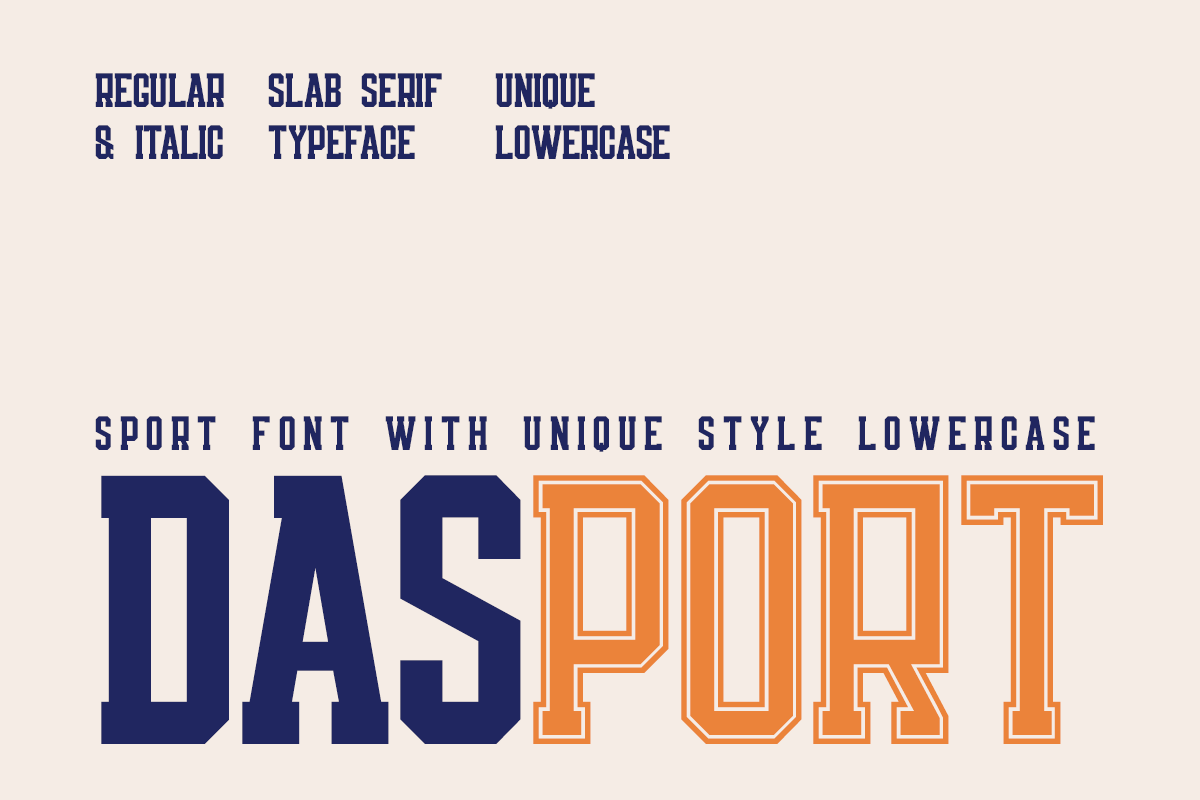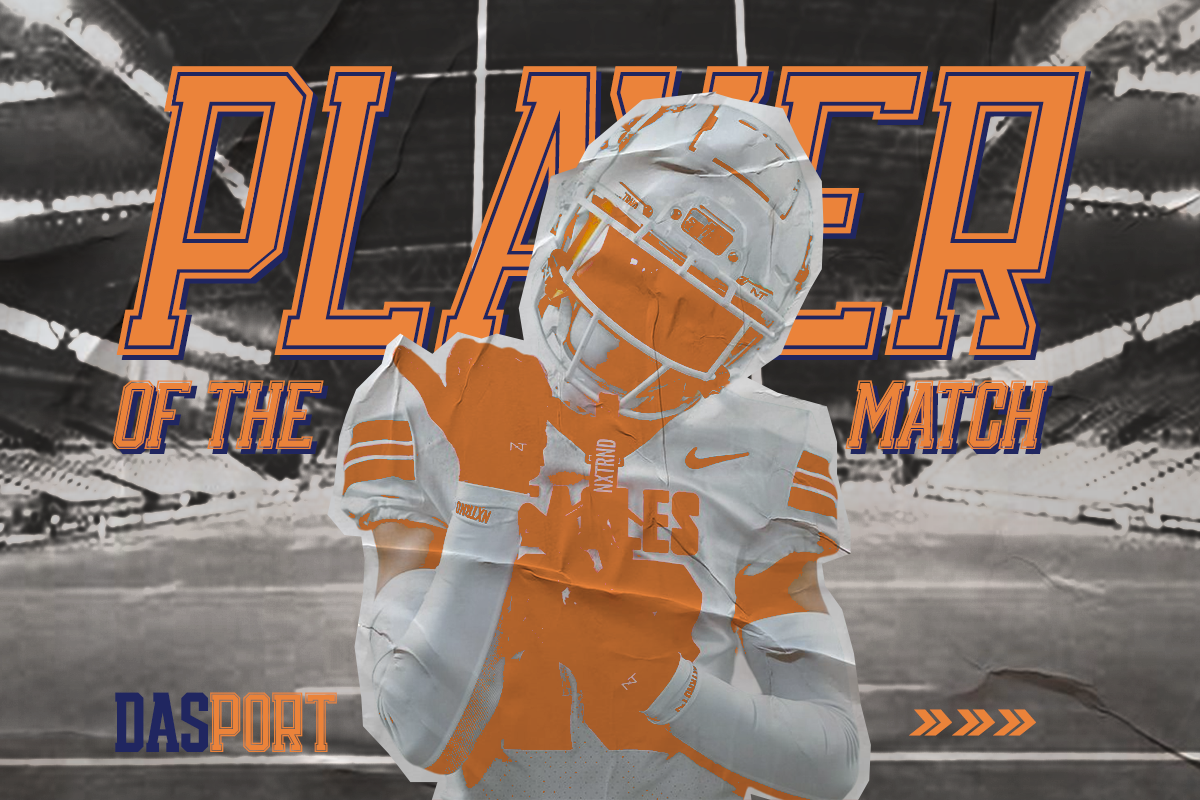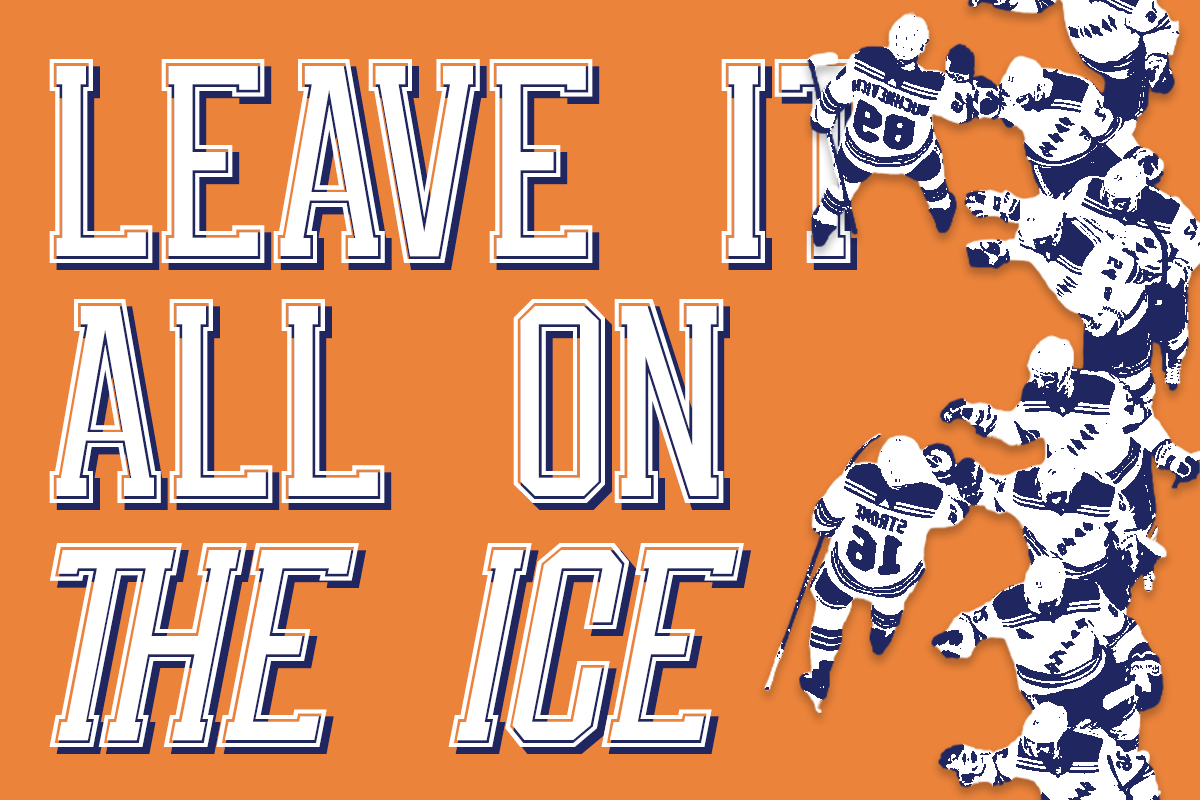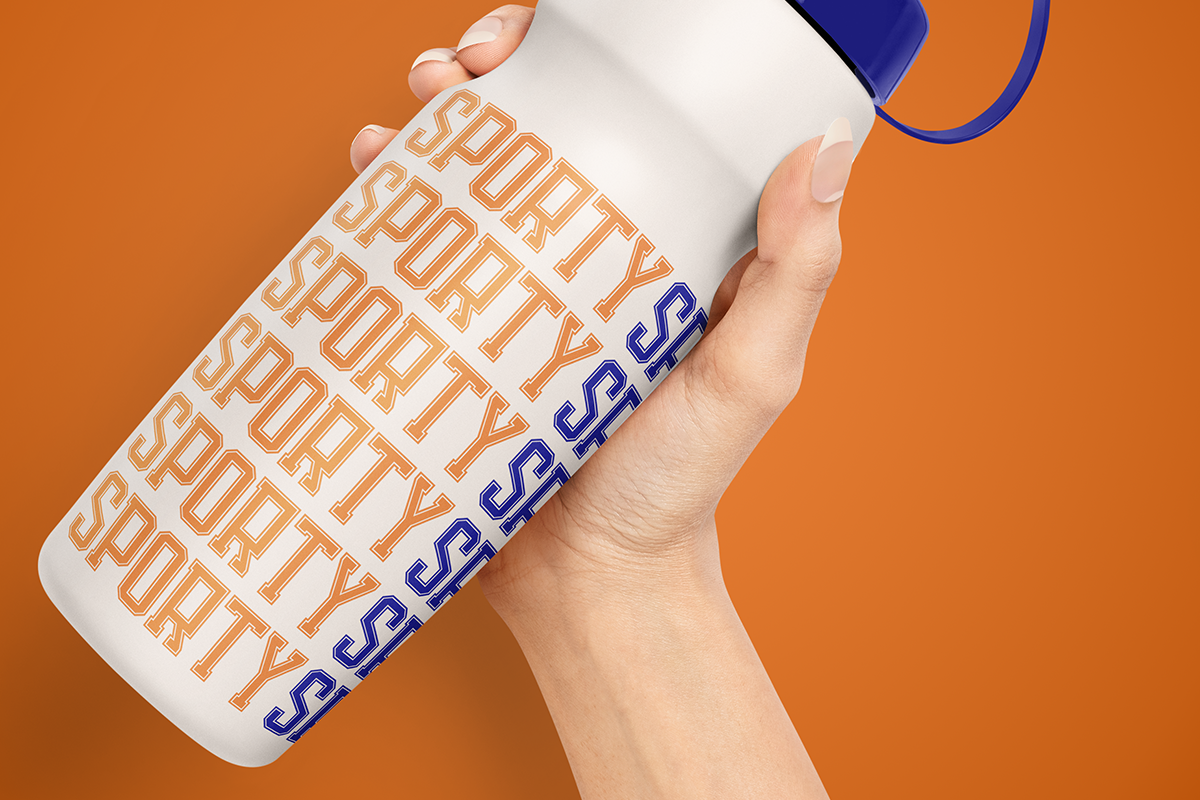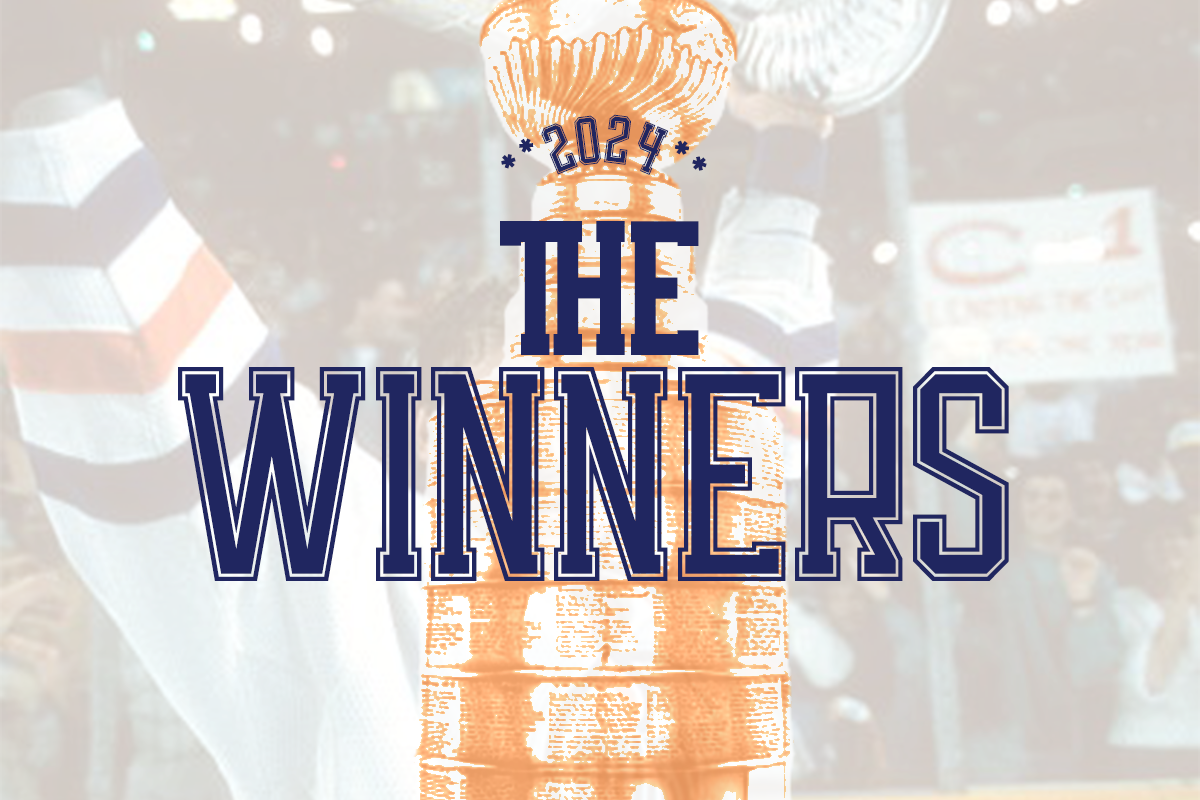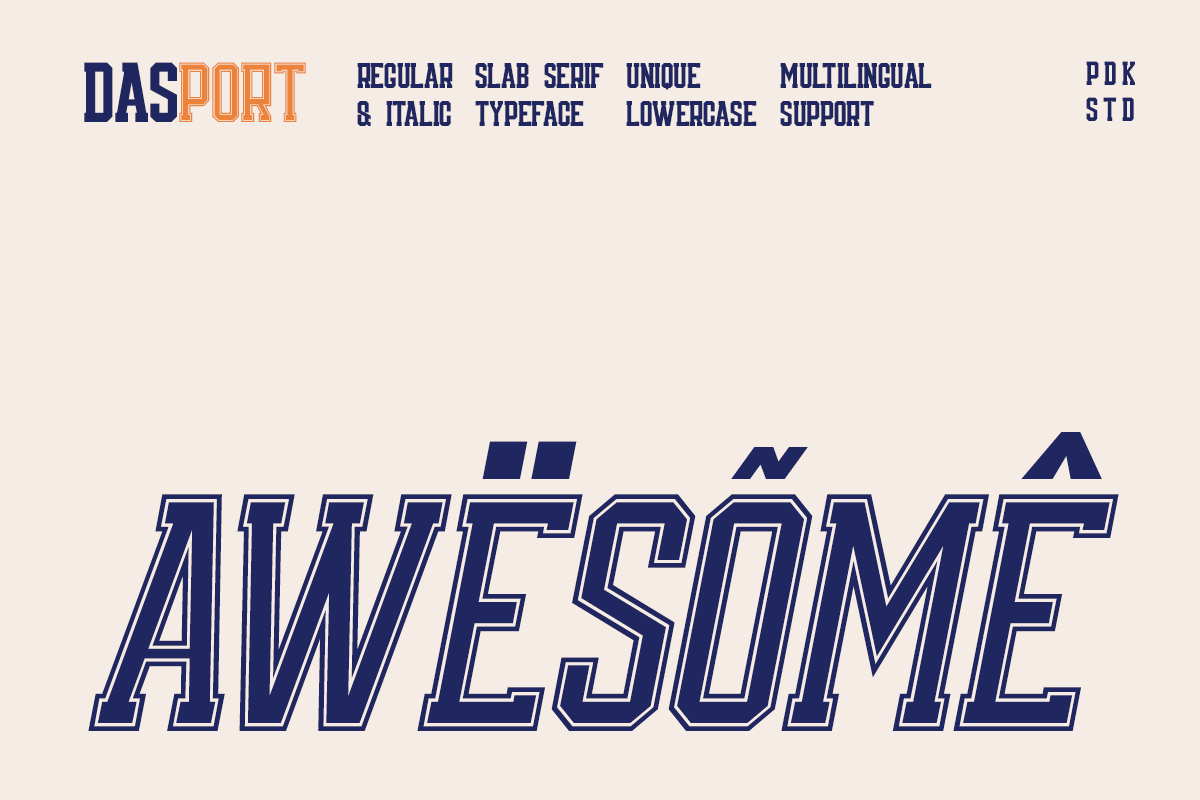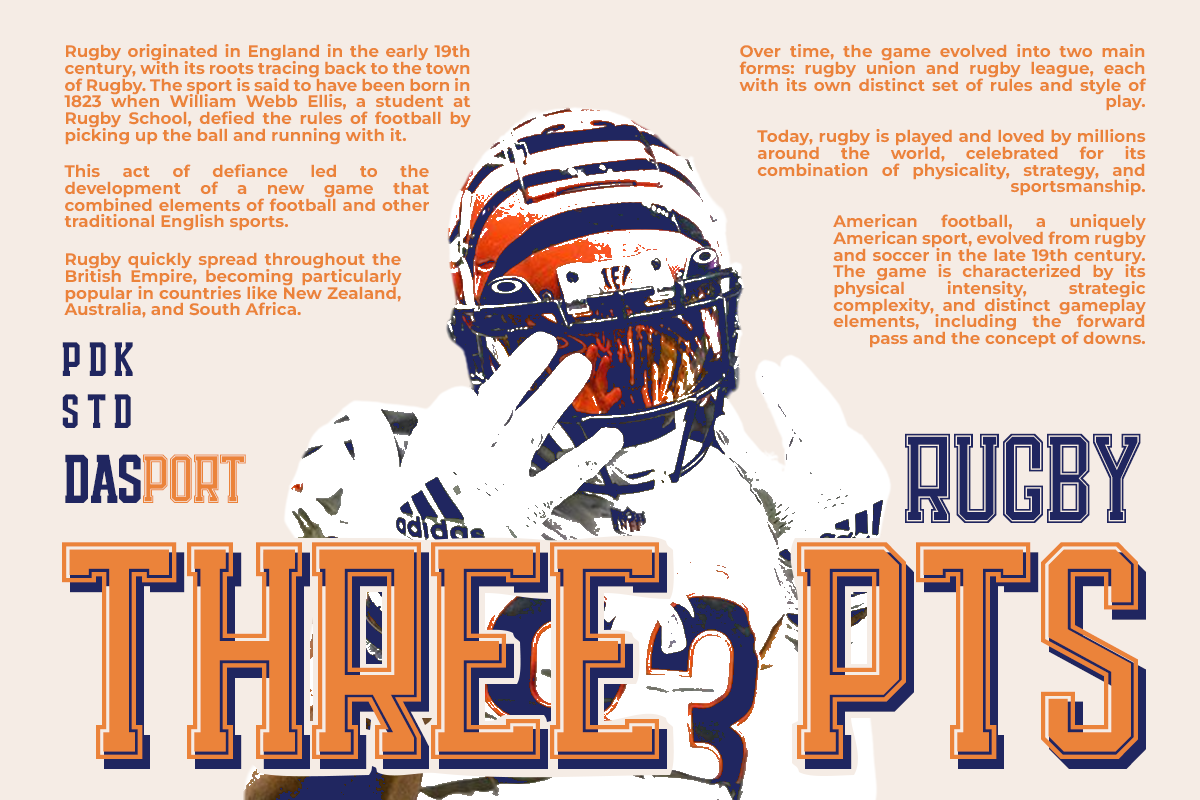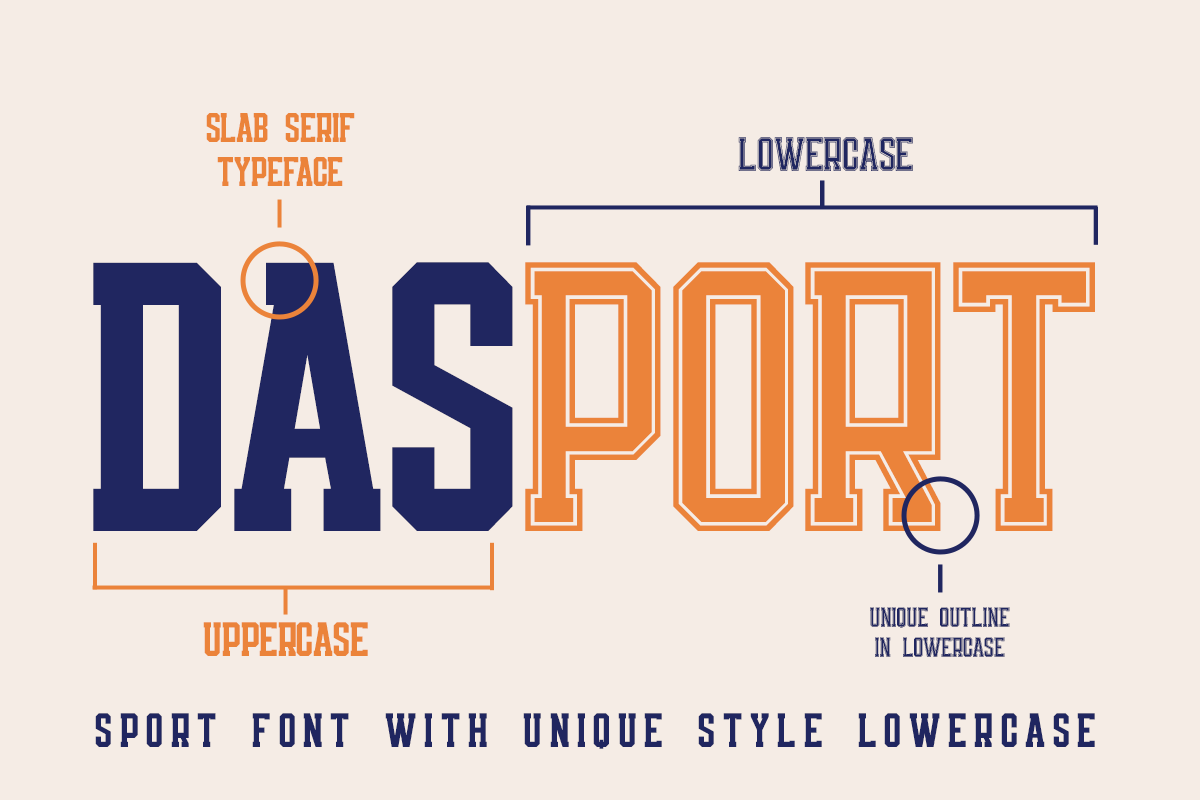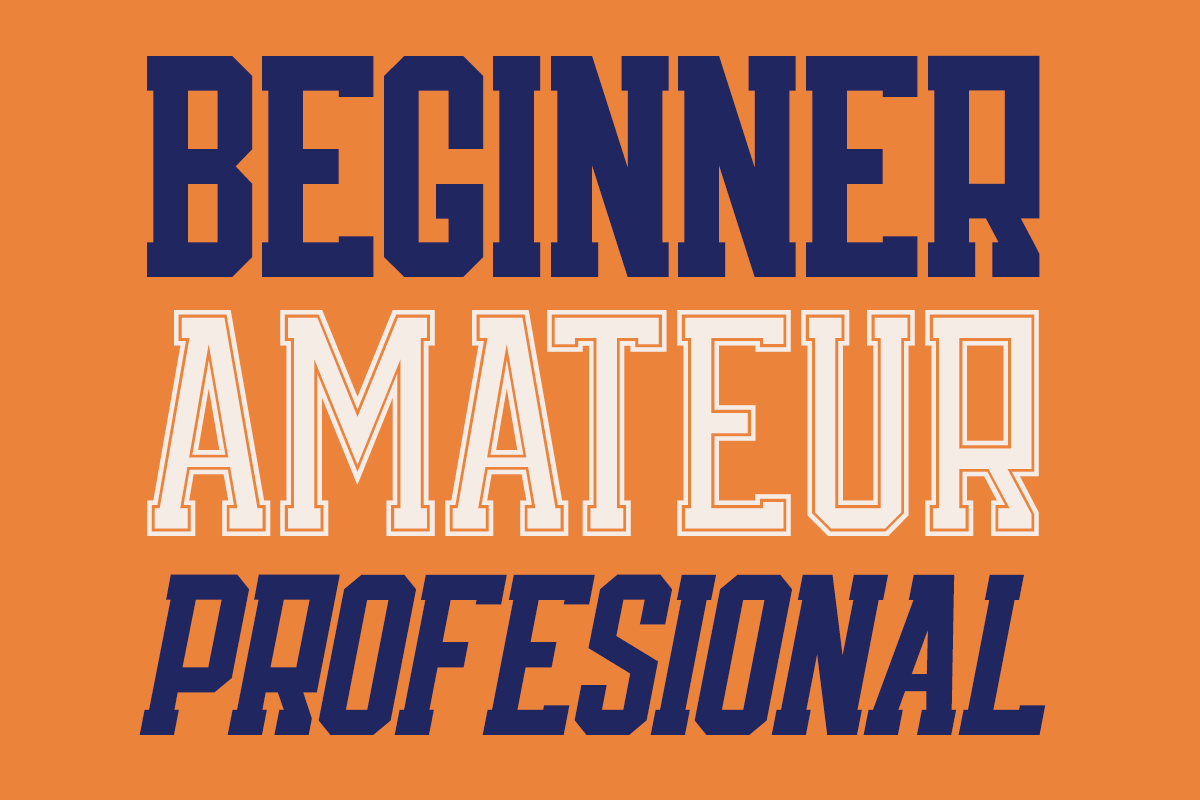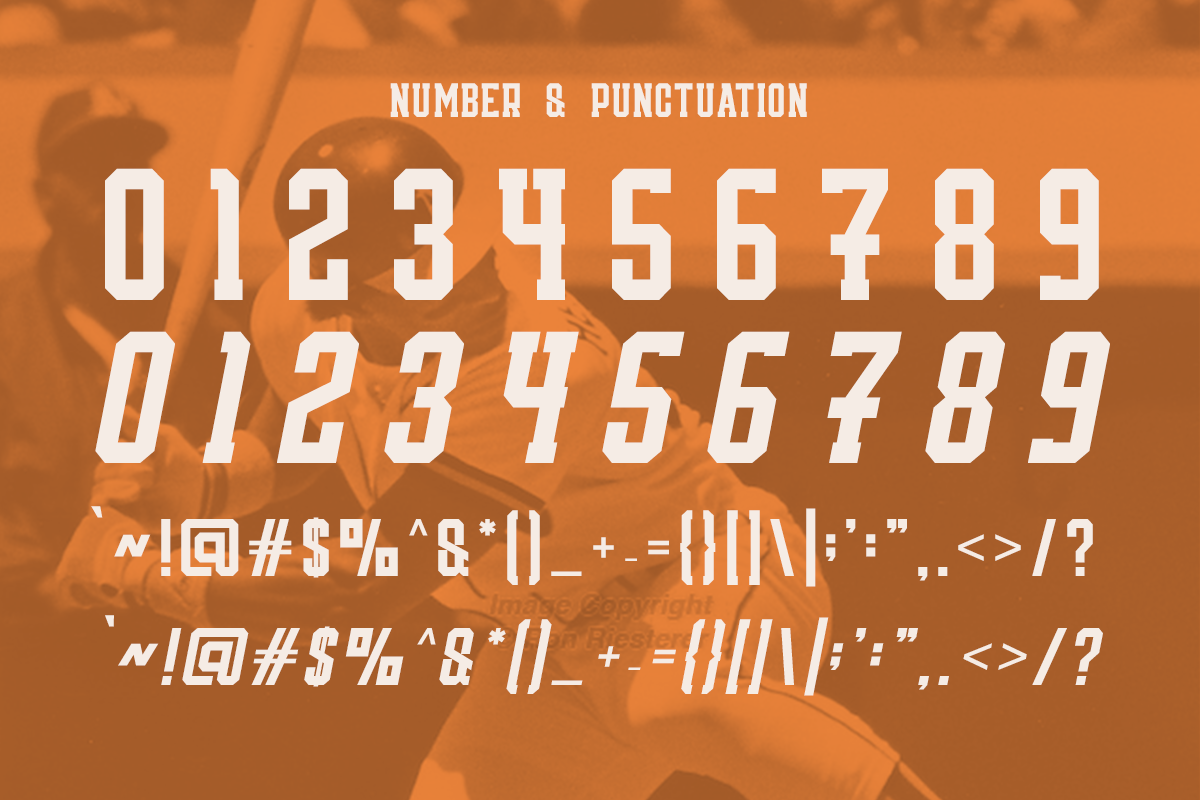
Dasport - Baseball Sport Font
Introducing our new product, Dasport – a modern, bold, and authentic display font with unique style lowercase characters.
Dasport is perfect for any branding project, including logos, template designs, product packaging, and much more. It stands out in a wide range of contexts, making it a versatile choice for all your creative needs.
Whether you're designing for esport, fashion, or any other industry, Dasport Font adds a dynamic and eye-catching touch.
- Uppercase & Lowecase Letters
- Regular and Italic options
- Complete Special Ligatures
- Unique letterforms
- Currencies